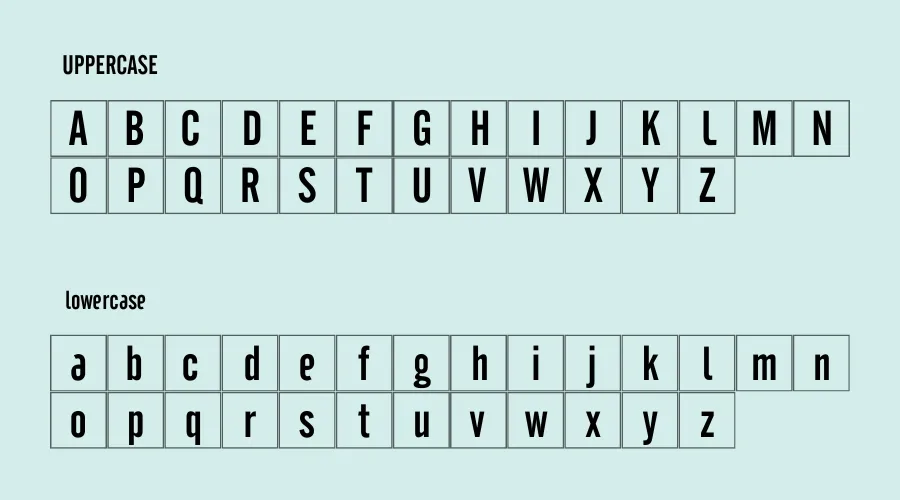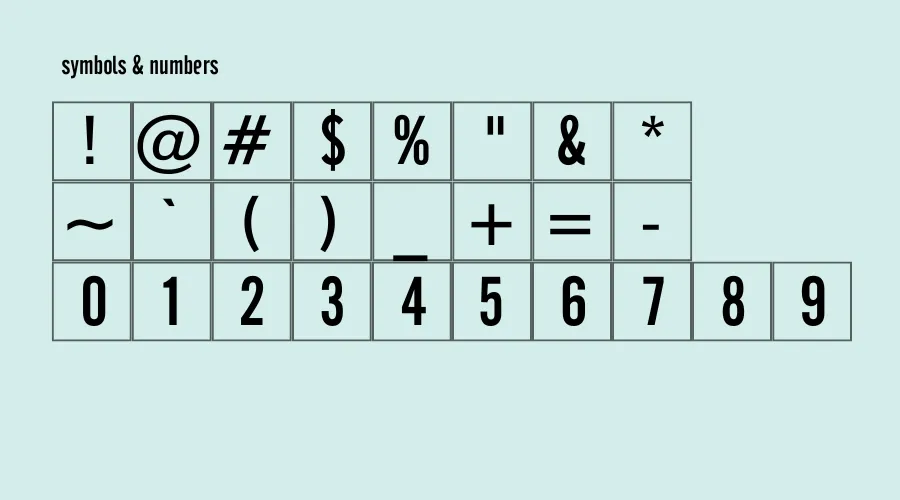
Cafeta Font
About Cafeta Font
The Cafeta font is a beautiful sans-serif typeface created by the Spanish graphic designer, Inaki Marquinez. This font is perfect for adding an elegant yet modern touch to any design project. It is a perfect choice when a design requires a clean and contemporary look, as the form of the characters is smooth and straightforward.
This typeface was designed with clear intent; it is meant to be legible and inviting, with subtle characteristics that increase its readability. The most prominent feature of this font is the slightly slanted crossbars in some of its letters and numbers. This feature helps make the font friendly and eye-catching.
The boldness of the font also makes it suitable for large bodies of text. It is easy to scan quickly and still read the content without losing clarity or focus. you can easily free download this typeface from our website and install it on your devices.
In addition to being easy on the eyes, this font also offers a strong personality. Its bold, blocky letterforms stand out against traditional fonts, making it an excellent choice for titles and logos. The Cafeta font is a perfect typeface family that can be used in print and digital designs. Its simplistic lines make it superb for your design projects.
This typeface is perfect for any kind of your design that requires a touch of personality and depth. Its unique style is great for making greeting cards and other items more special, adding a little extra something that can make them unique and different from any other.
Cafeta font is what type of font?
This font is a beautiful sans-serif typeface created by the Spanish graphic designer, Inaki Marquinez.
Is Cafeta font a perfect font for designing?
Its bold, blocky letterforms stand out against traditional fonts, making it an excellent choice for titles and logos. This font is a perfect typeface family that can be used in print and digital designs.